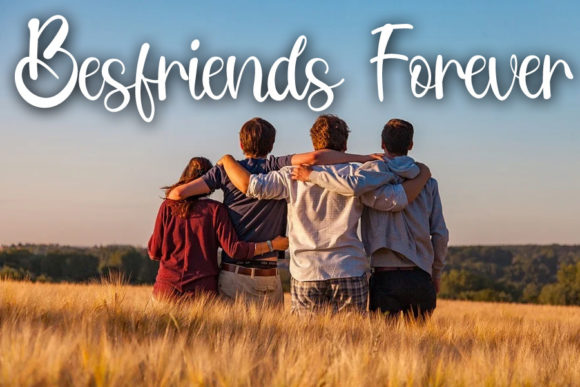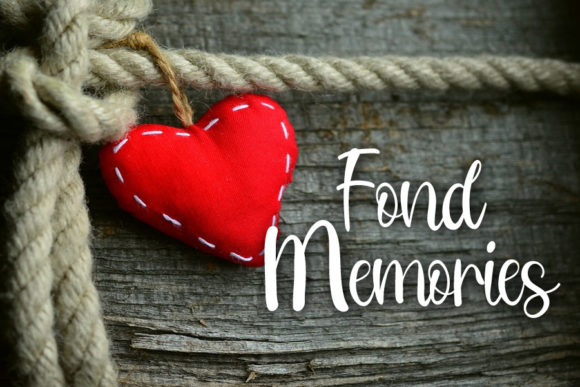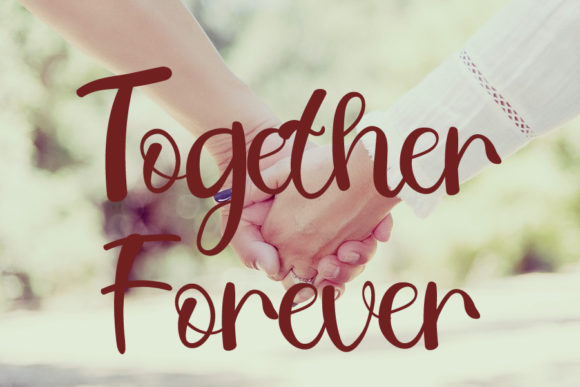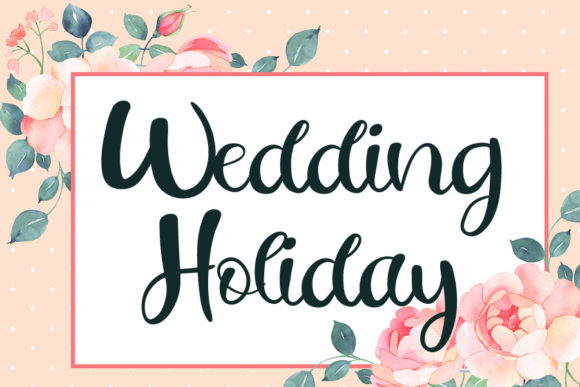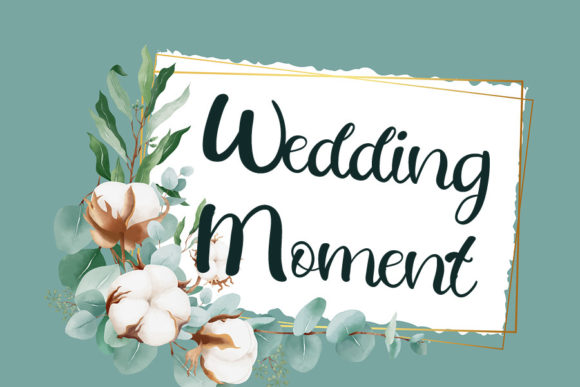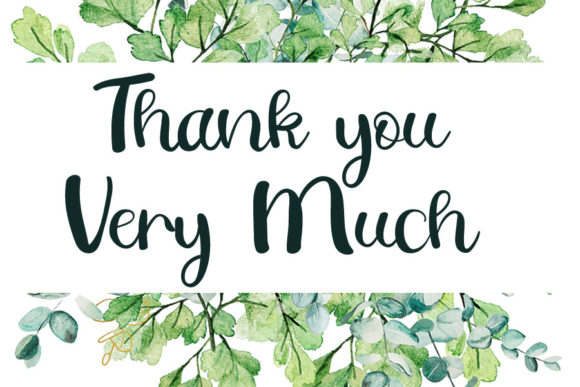
Bestie Font
About Bestie Font
Bestie is a charming and refined handwritten font that has been meticulously designed to bring a touch of elegance and class to your design projects. With careful attention to detail, every curve and stroke in this font has been crafted to achieve maximum visual appeal and a subtle, yet impactful, aesthetic.
The soft and subtle nature of Bestie’s characters makes it a versatile choice for a wide range of design applications. Whether you’re working on invitations, branding materials, labels, quotes, or any other creative project, this font can seamlessly blend into various contexts, adding a sense of sophistication to your designs.
The careful craftsmanship of Bestie ensures that it not only looks visually pleasing but also retains a sense of authenticity. Its handwritten style provides a personalized and human touch to your text, making it feel genuine and relatable.
Bestie’s adaptability to different design needs is one of its standout features. Its elegance and subtlety make it suitable for conveying messages in a subtle and understated manner, which can be especially effective for projects that require a touch of sophistication.
Whether you’re working on digital or print projects, Bestie’s subtle and refined appearance will enhance the overall visual impact of your designs. Its versatile nature allows it to adapt to the tone and theme of your projects, making it an excellent choice for conveying various emotions and messages.
Incorporating Bestie into your design projects can elevate them to a new level of sophistication and class. Its careful attention to detail and delicate charm make it an invaluable asset for any designer looking to create elegant and timeless designs.